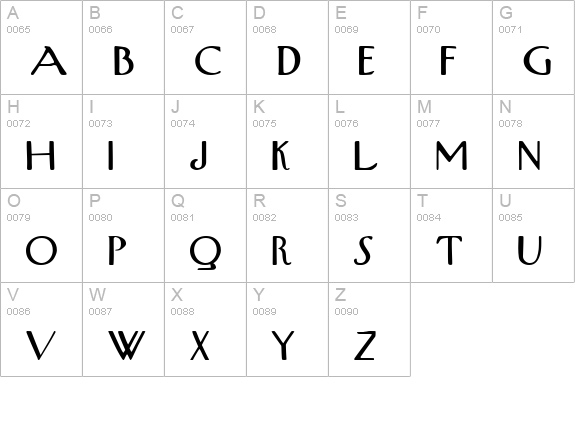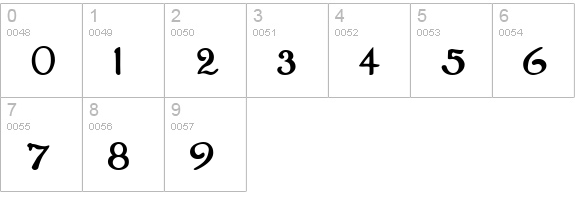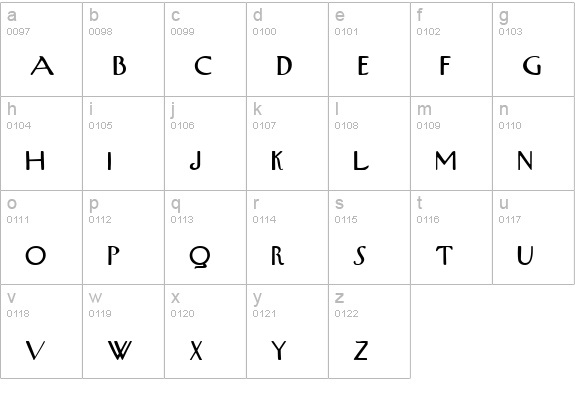
The Upper West Side font is a stunning display typeface that captures the essence of elegance and sophistication. Its bold and clean lines make it perfect for creating eye-catching headlines, logos, and branding materials. Whether you're designing for a high-end fashion brand or a luxury hotel, this font will add a touch of class to your project. With its sleek and modern design, Upper West Side stands out from the crowd and commands attention. Its tall and narrow letterforms create a sense of verticality, giving your designs a sense of grandeur and stature. The precise curves and sharp edges of each character convey a sense of precision and professionalism. What sets Upper West Side apart is that it is not only visually appealing, but also freely available to download at FontsMarket.com. This means that you can add this beautiful font to your collection without any cost, making it an excellent choice for designers on a budget. The versatility of Upper West Side is another aspect that makes it a must-have font. Whether you're designing for print or digital media, this font will adapt seamlessly to different contexts. Its legibility remains uncompromised, ensuring that your message is conveyed with clarity and impact. In terms of language support, Upper West Side covers a wide range of Latin-based alphabets, making it suitable for projects in various regions around the world. It also includes a selection of special characters and punctuation marks, allowing you to create unique and expressive designs. So, if you're looking to elevate your designs and make a lasting impression, look no further than Upper West Side. Download this exceptional font for free at FontsMarket.com and unlock a world of possibilities for your creative endeavors.